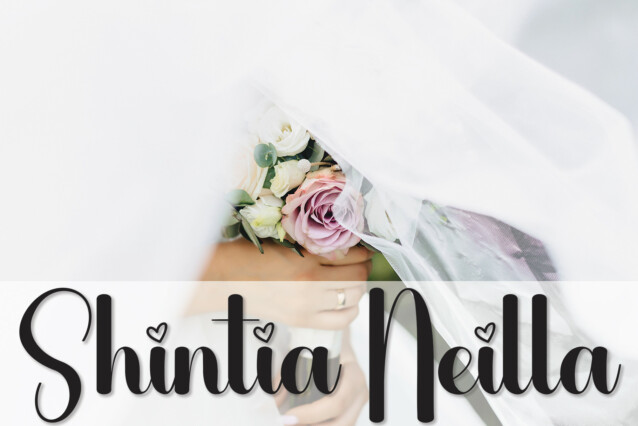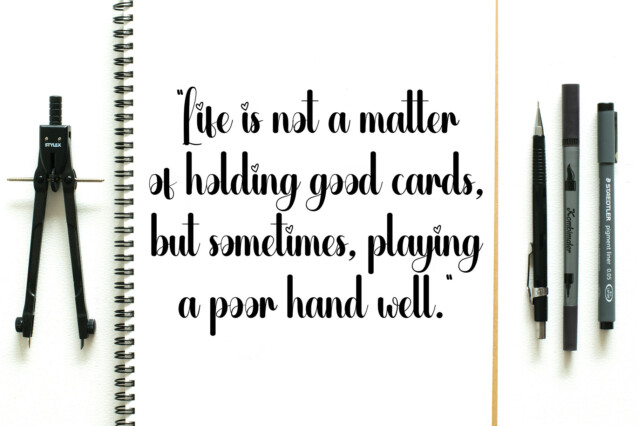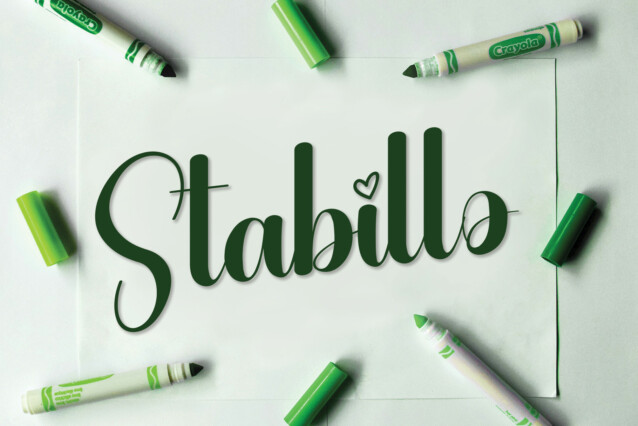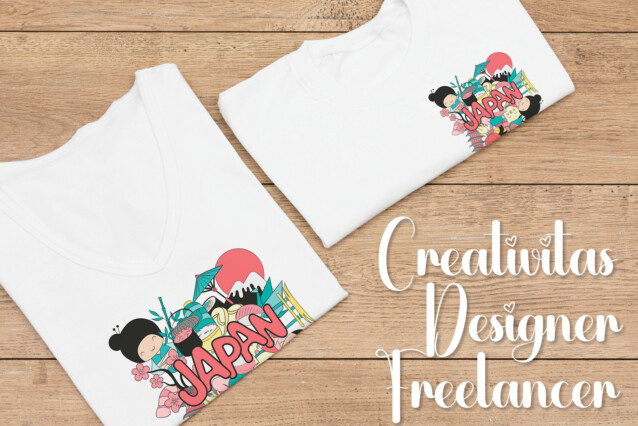
Brighty Script Font
Brighty Script Font is a romantic and sweet calligraphy typeface with characters that dance along the baseline. It will add a luxury spark to any design project that you wish to create!